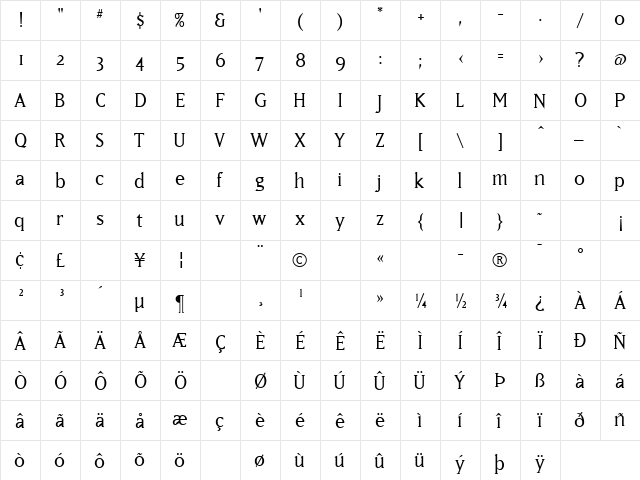
MatrixBookOldstyle Regular
Design Context for MatrixBookOldstyle Typeface
MatrixBookOldstyle brings classic typographic sensibility to the table — its serifs and measured letterforms reflect centuries of print heritage.
Pro Tip: Set MatrixBookOldstyle with slightly loose tracking in headlines to let each letterform's detail read clearly at display sizes.